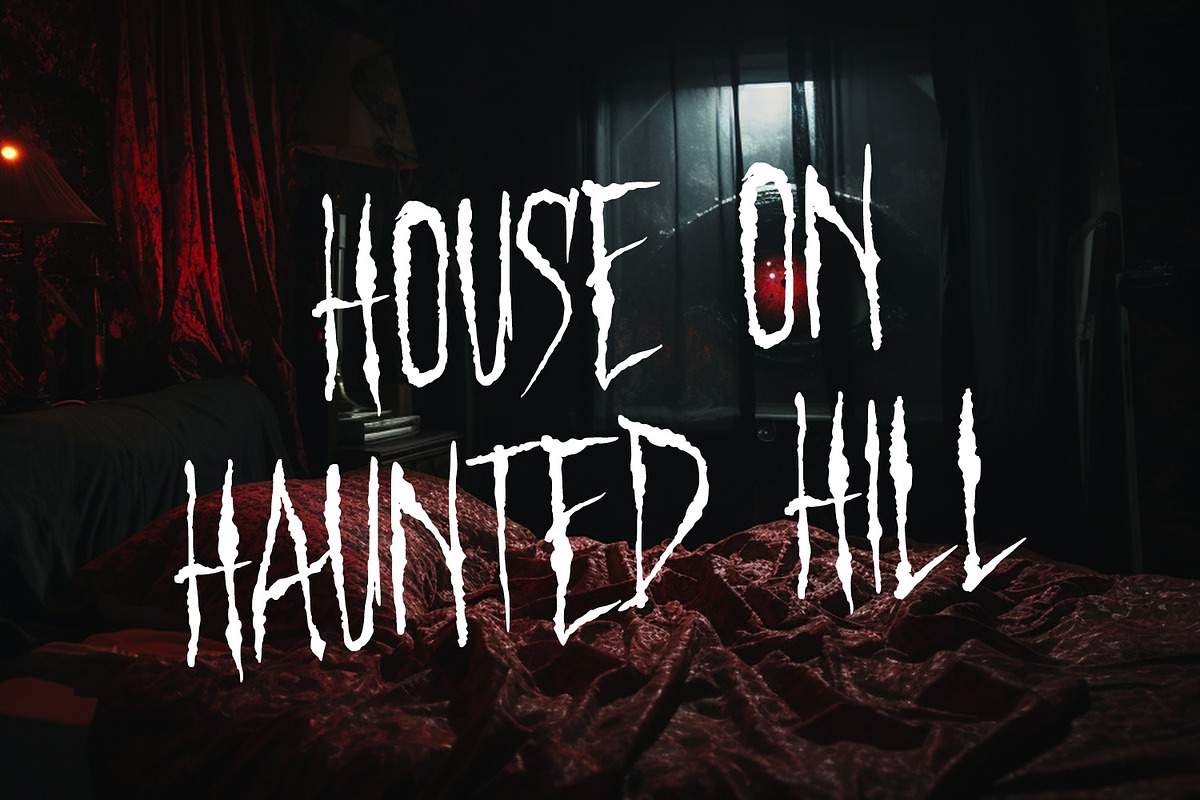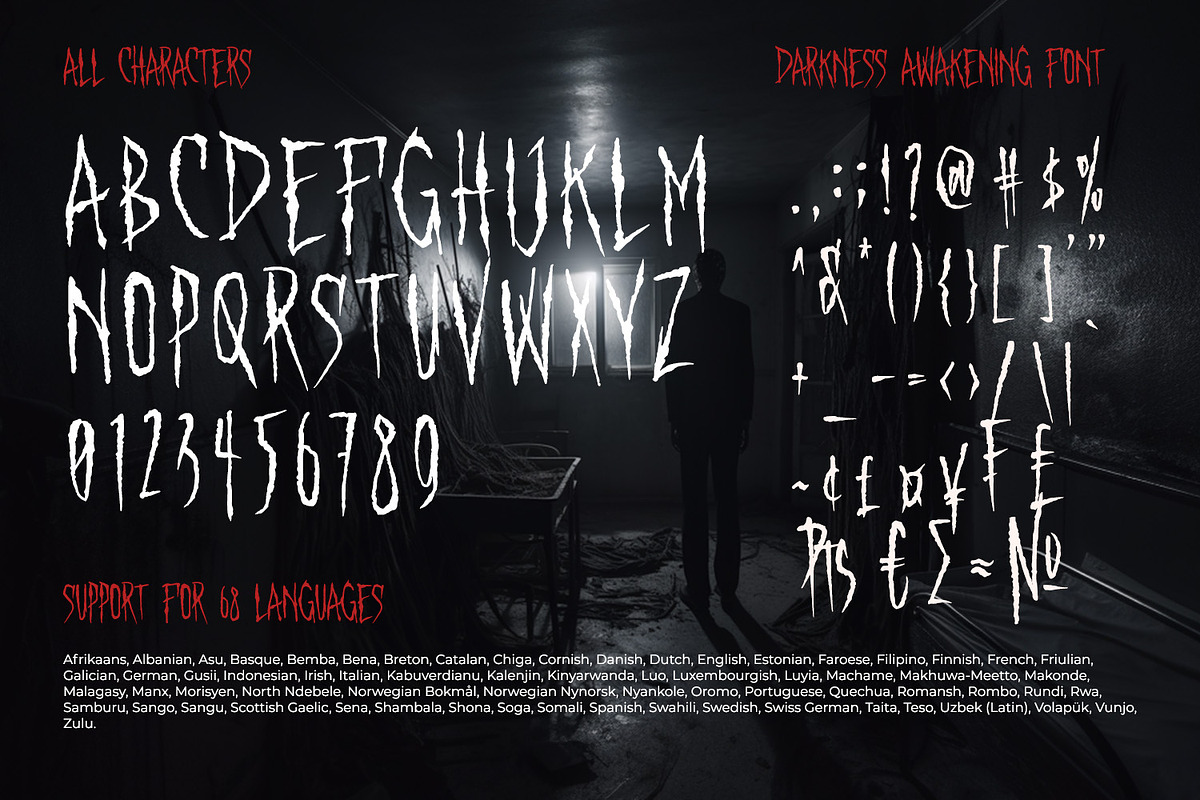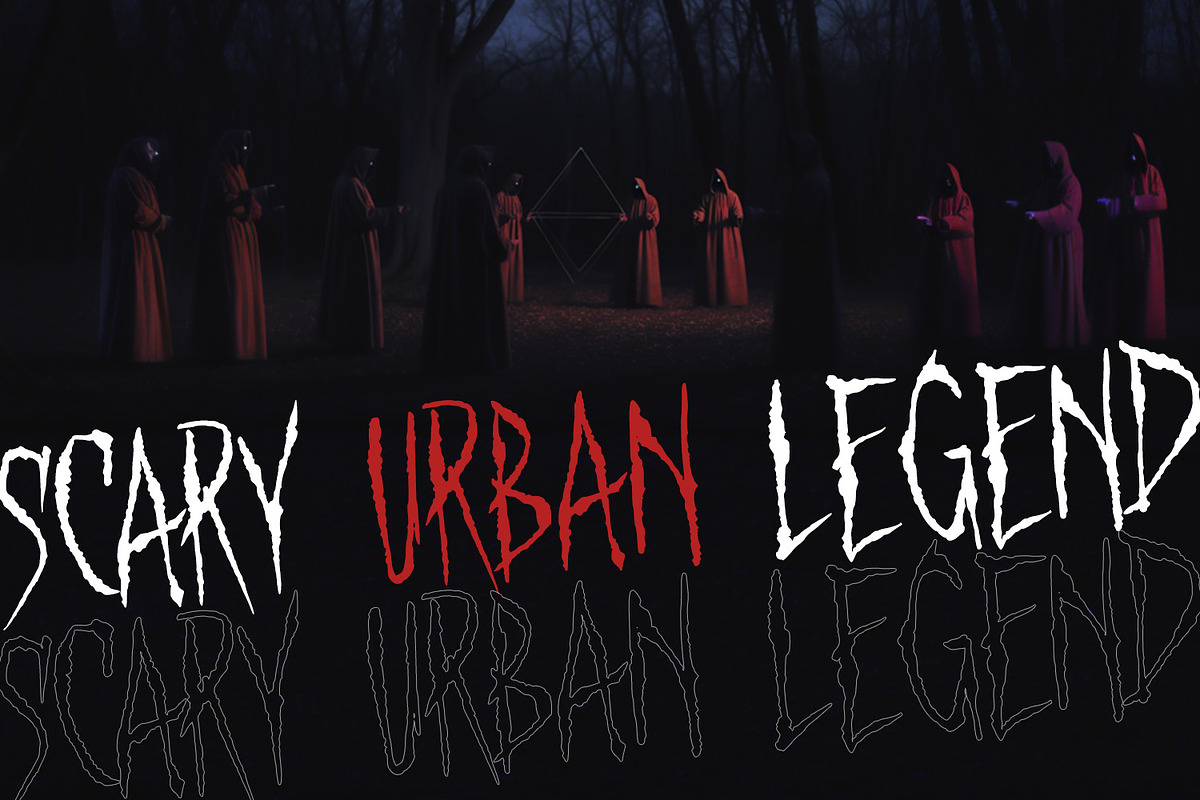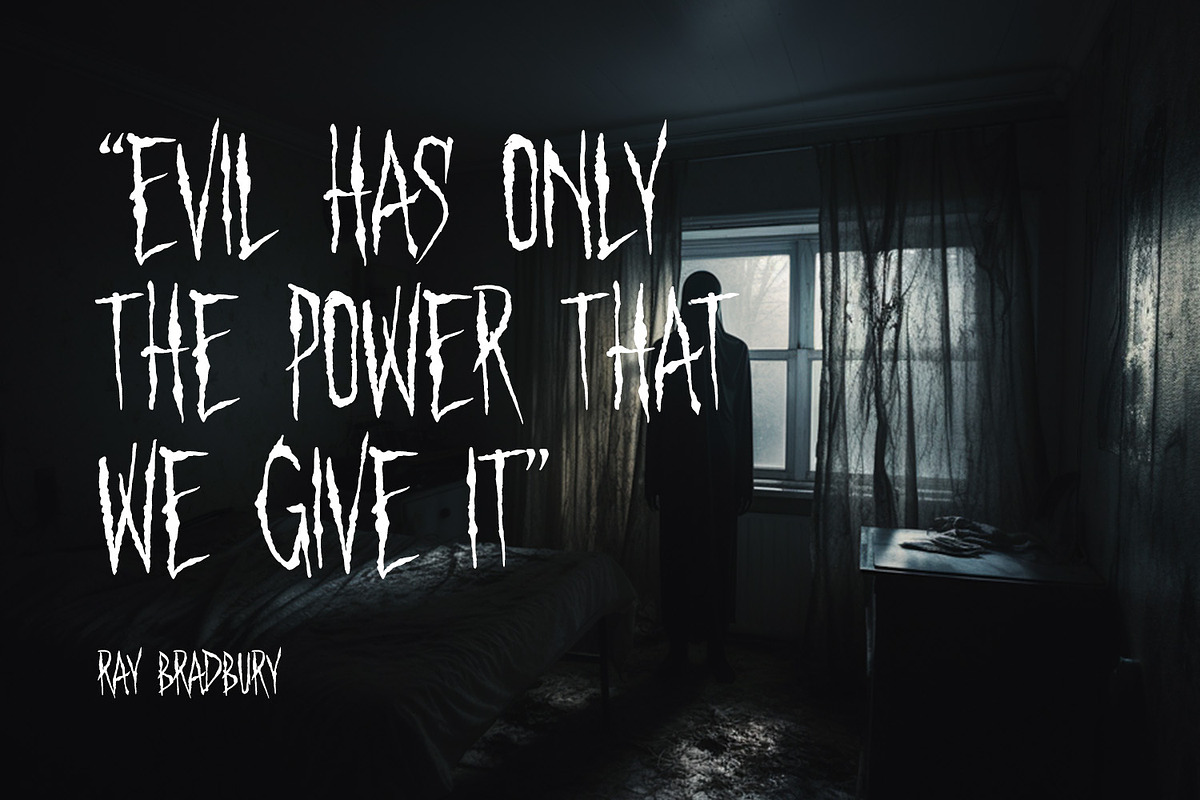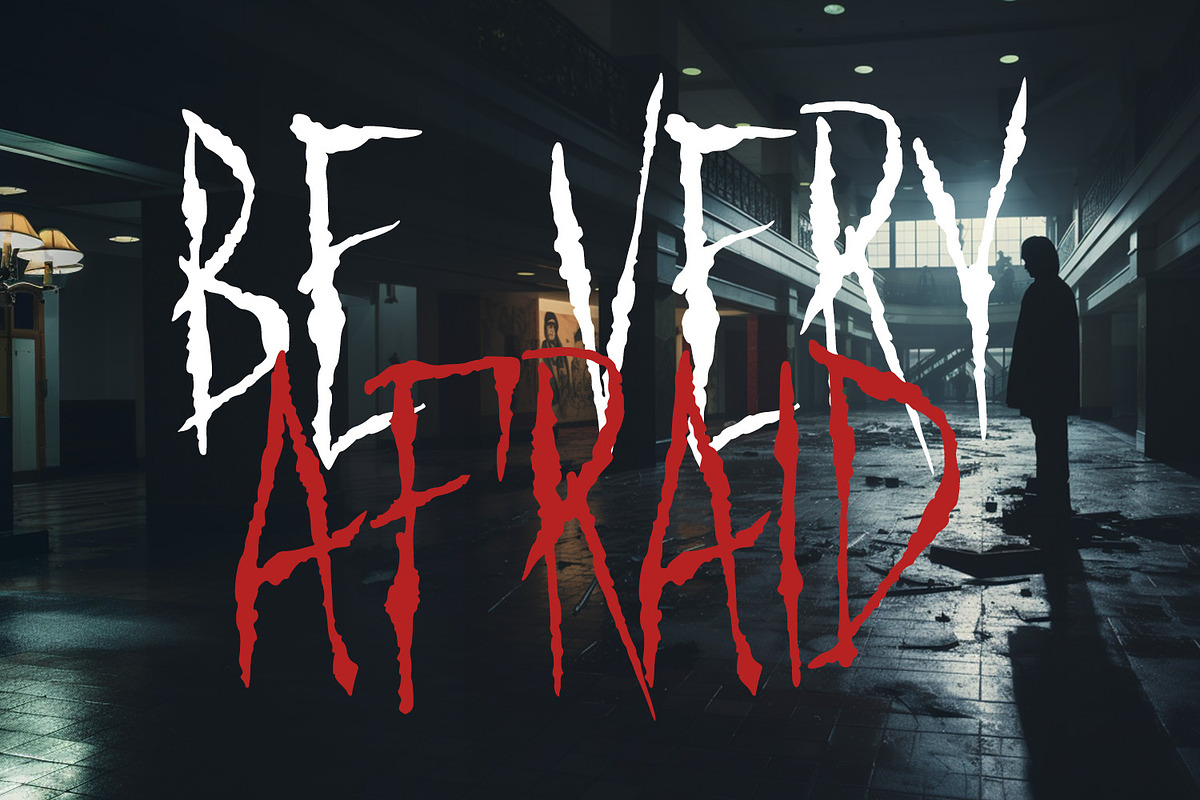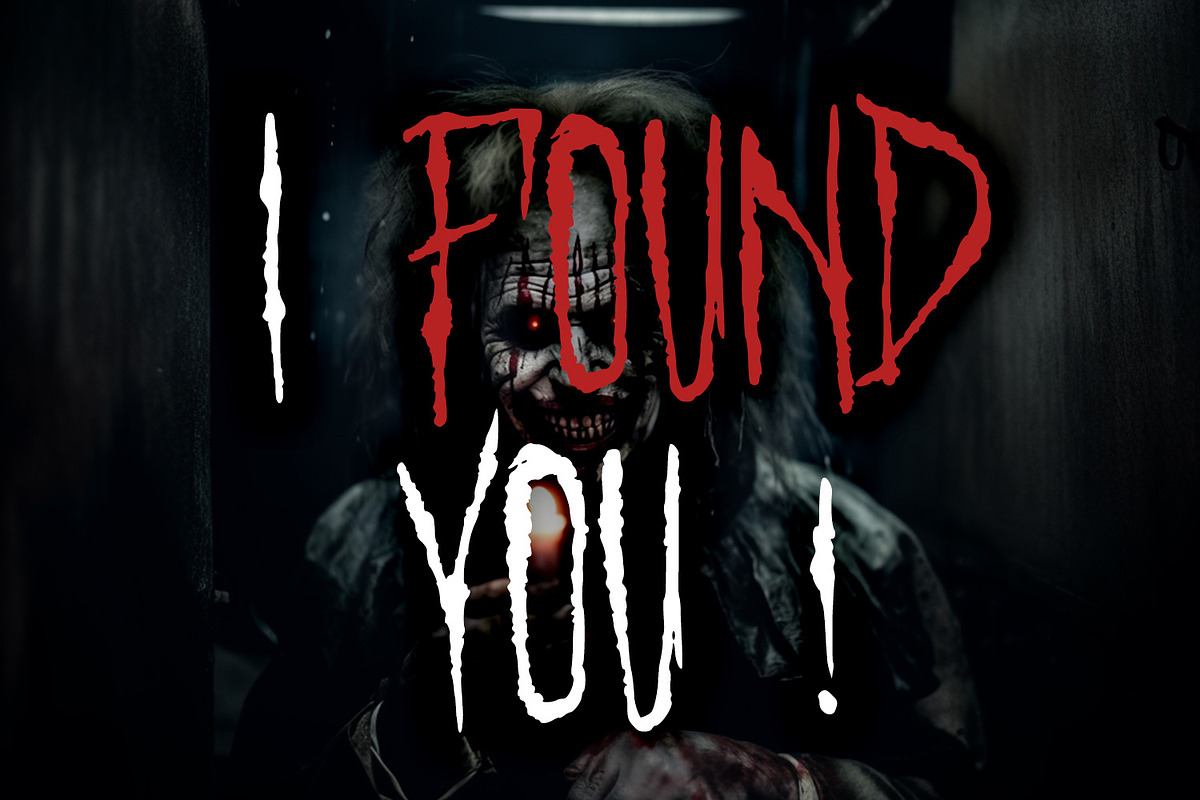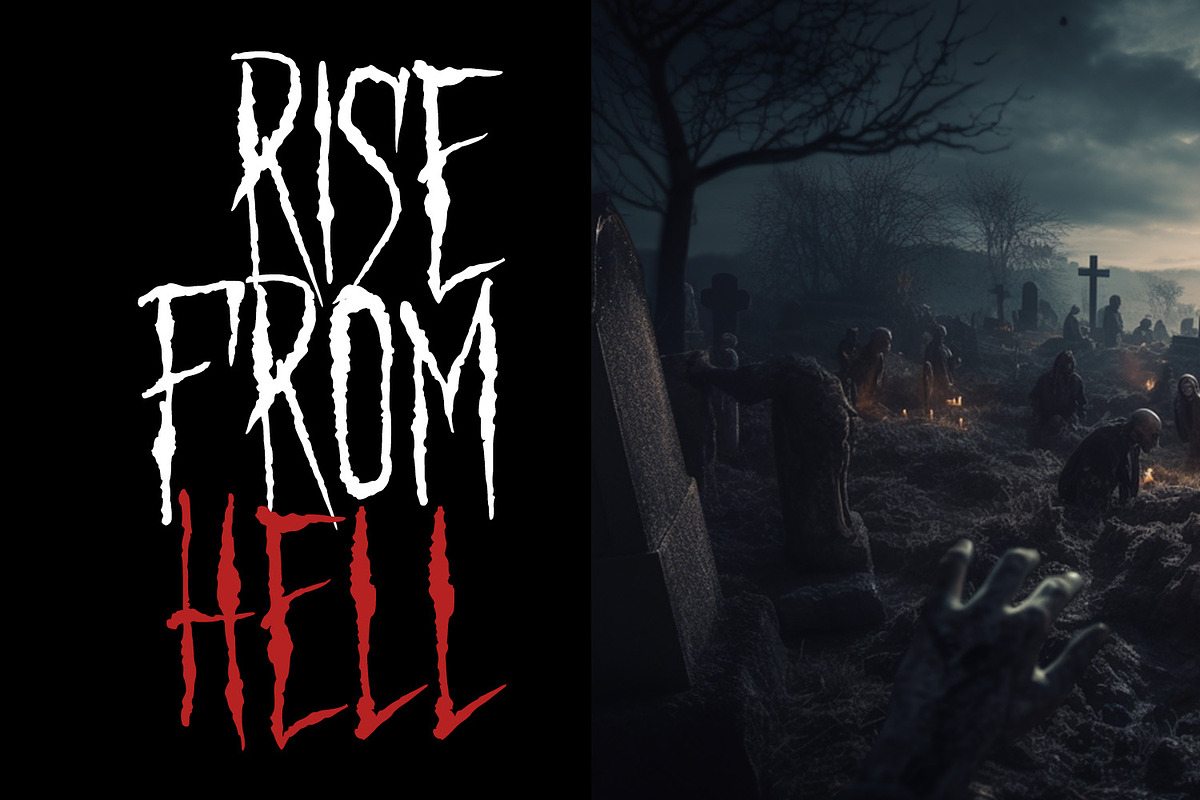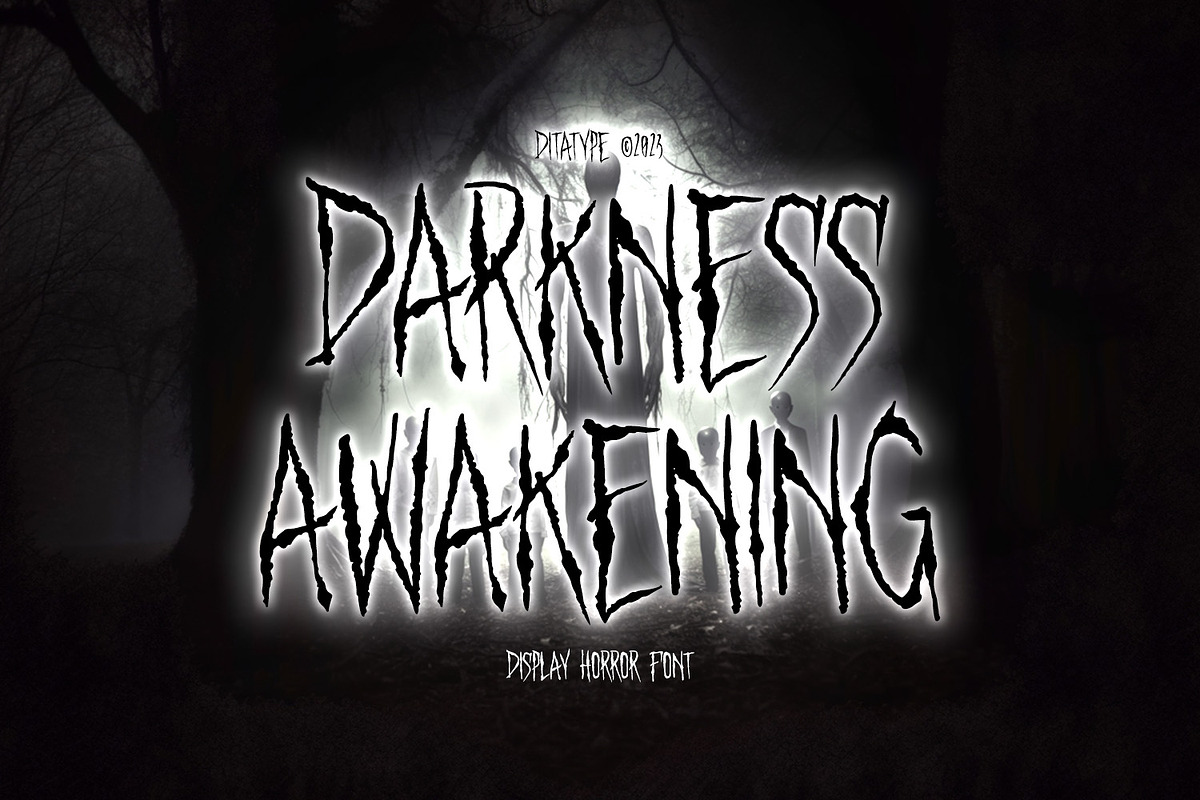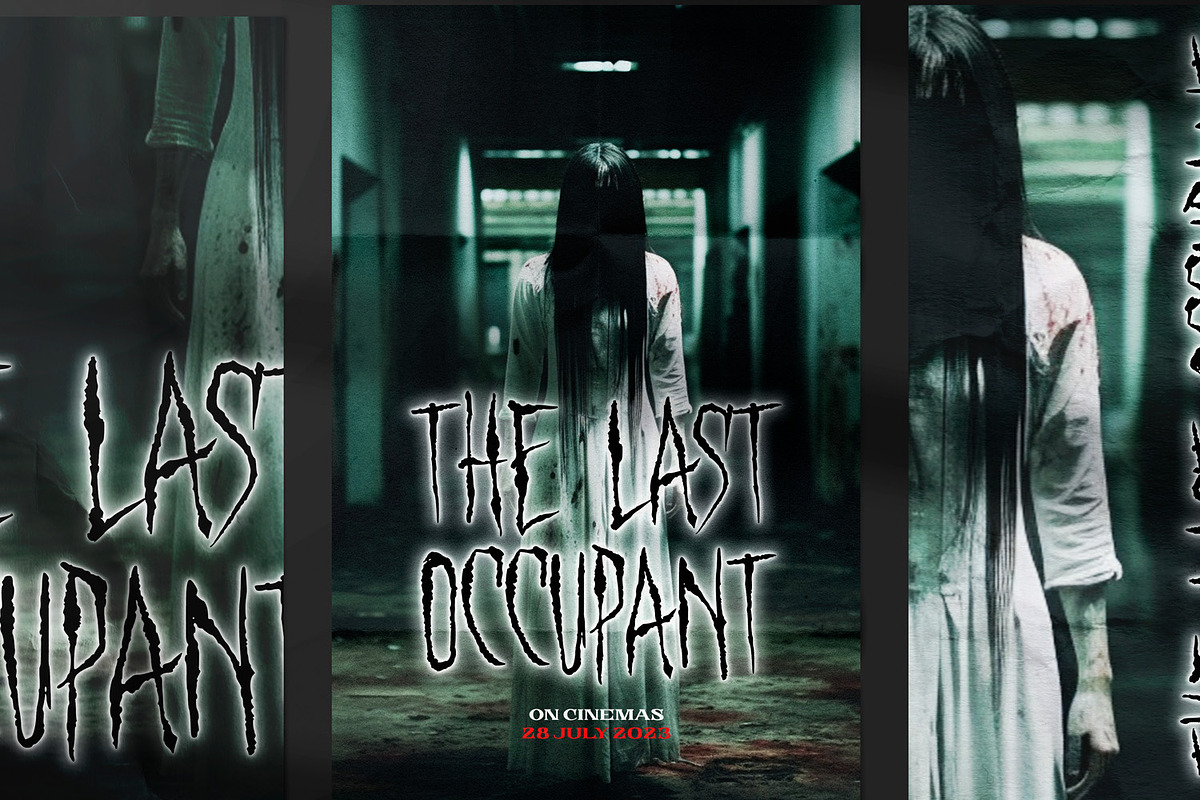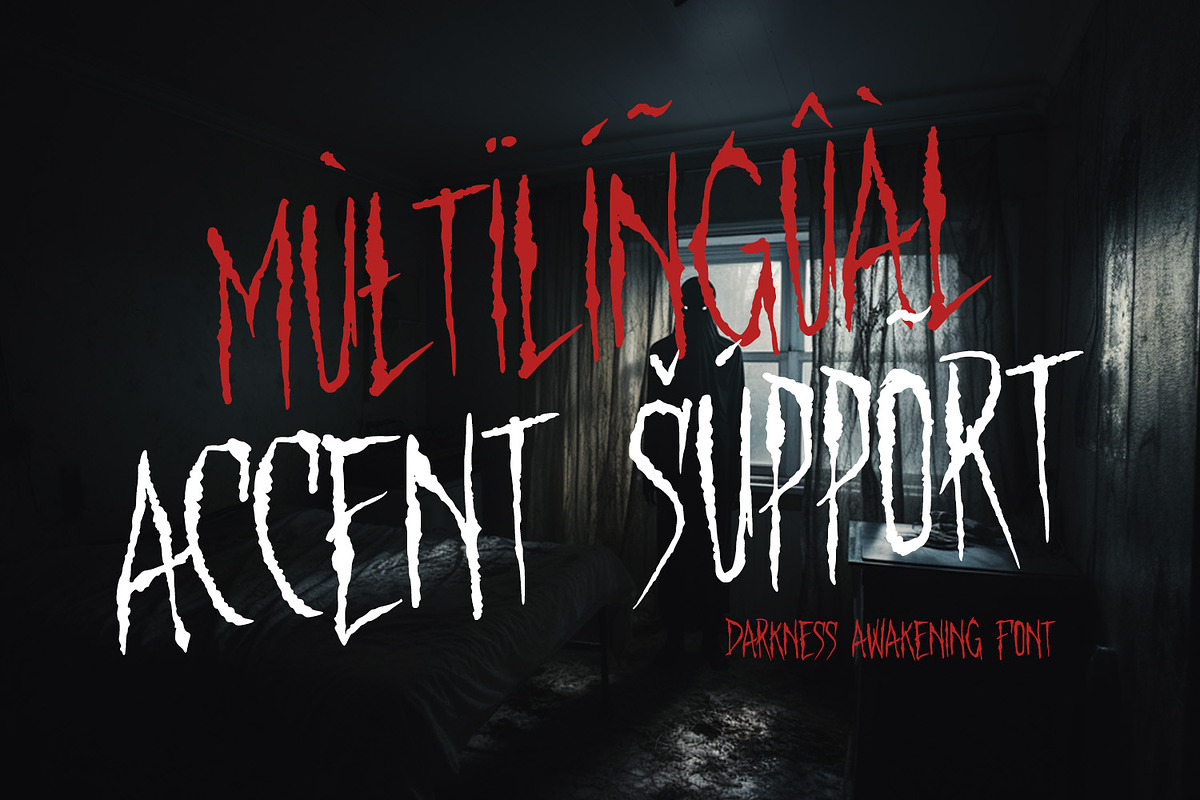
Darkness Awakening
Darkness Awakening is a chilling display font designed to send shivers down your spine. This uppercase font features eerie details that give it an air of horror and mystery, making it the perfect choice for spine-tingling design projects. Each letter in Darkness Awakening is meticulously crafted with the appearance of brush strokes, evoking a sense of handcrafted artistry. The brush details add a touch of unpredictability and chaos, giving the font a haunted and unsettling vibe. While the font is uppercase, it is not bold, allowing the horror theme and brush details to take center stage. For the best legibility you can use this font in the bigger text sizes. Enjoy the available features here.
Darkness Awakening fits in headlines, logos, movie posters, flyers, invitations, branding materials, print media, editorial layouts, headers, and any horror-themed projects. Find out more ways to use this font by taking a look at the font preview.